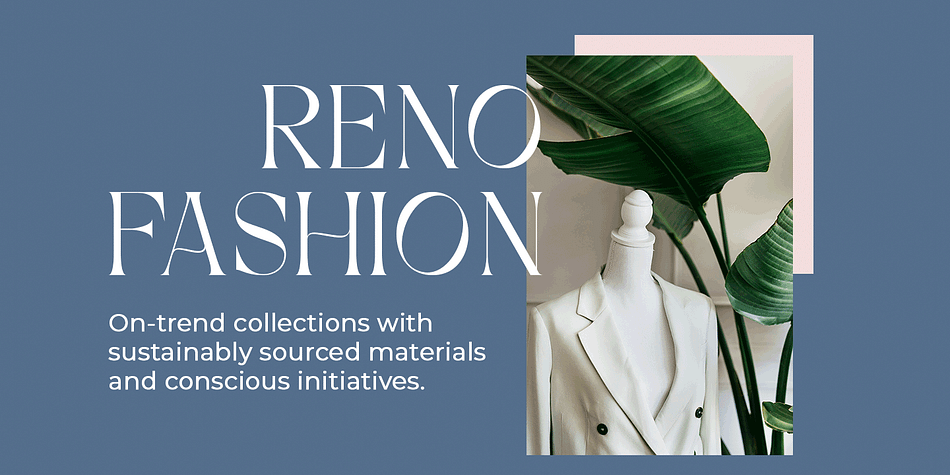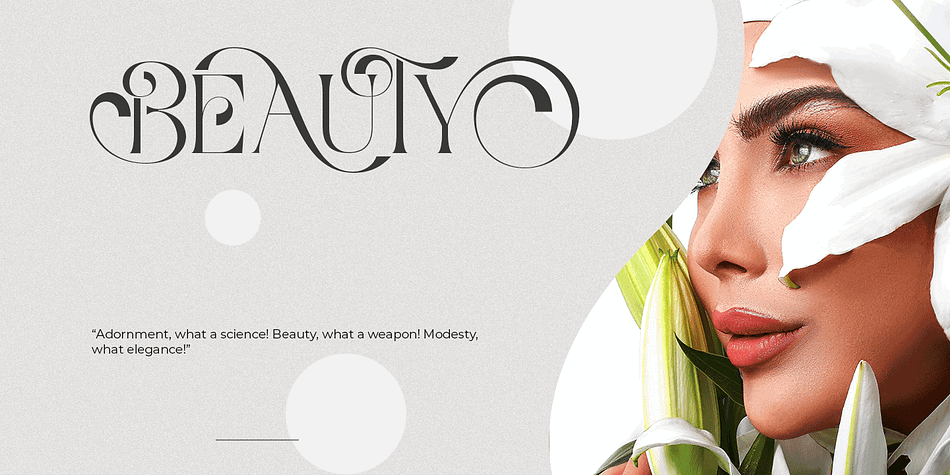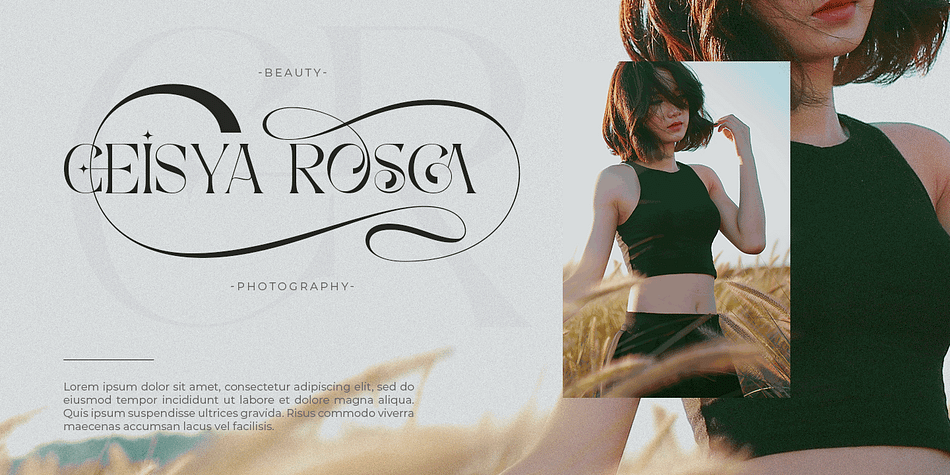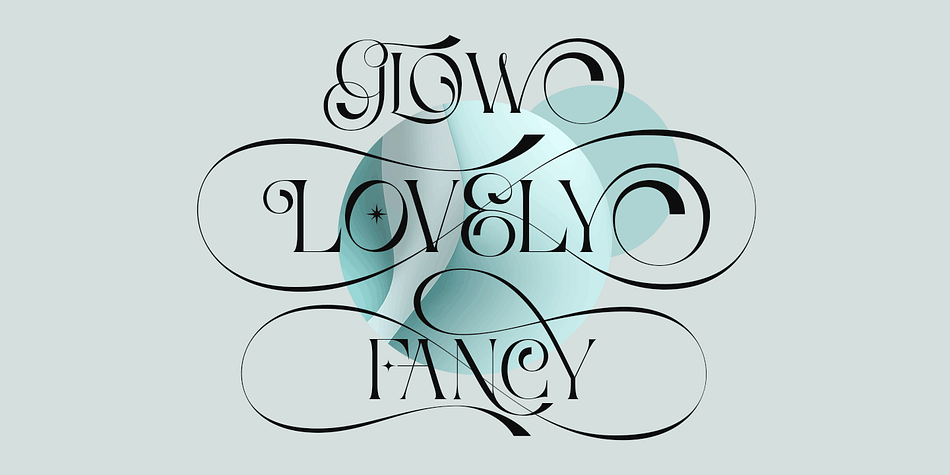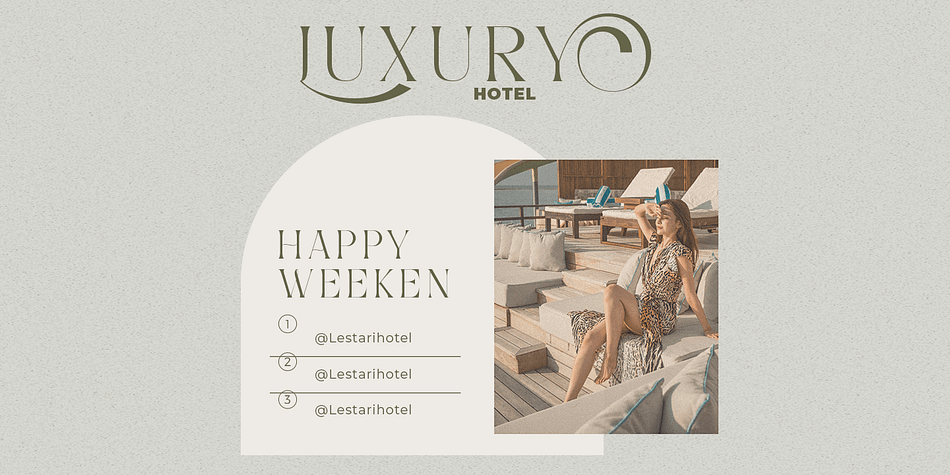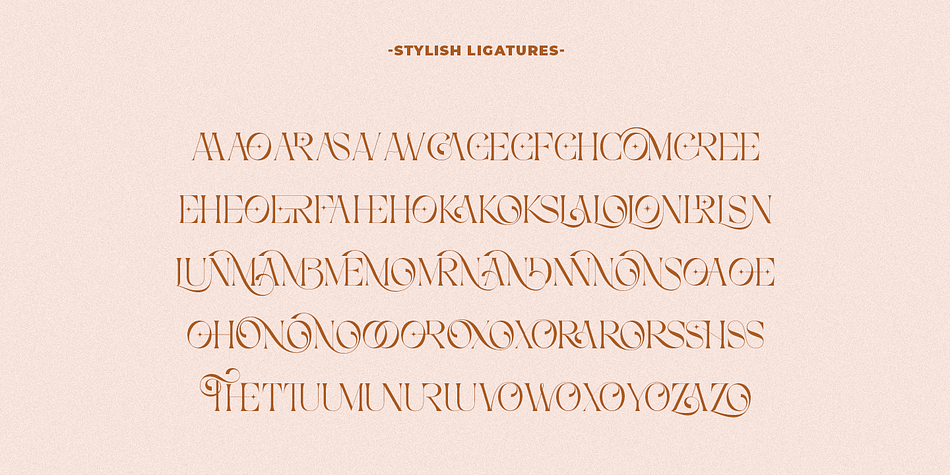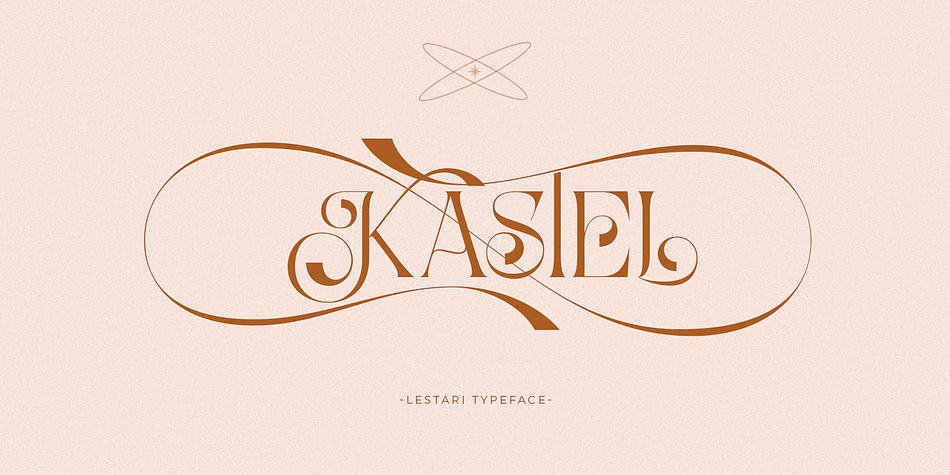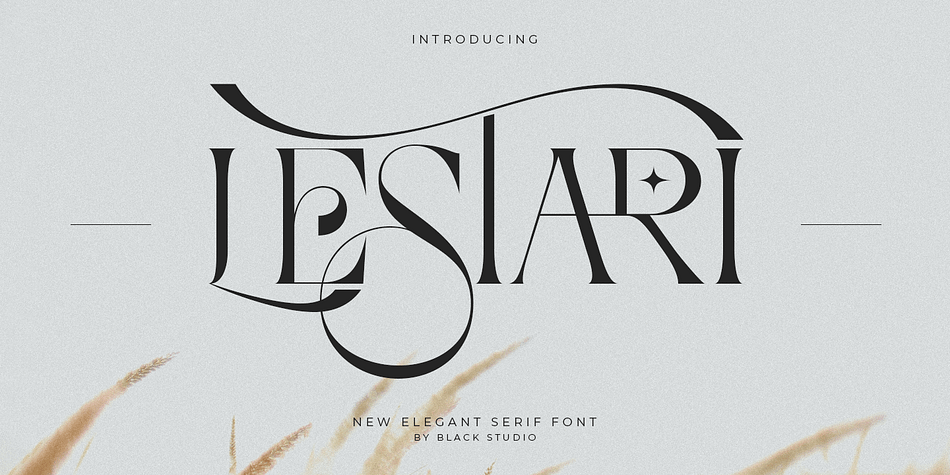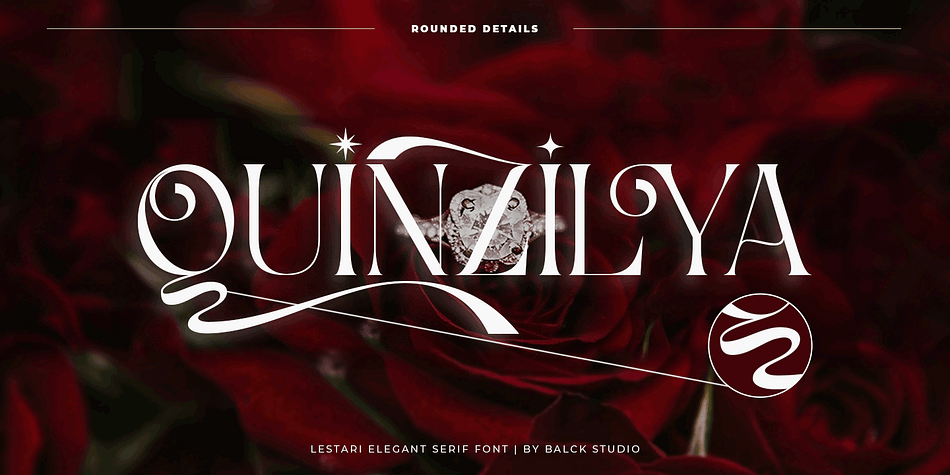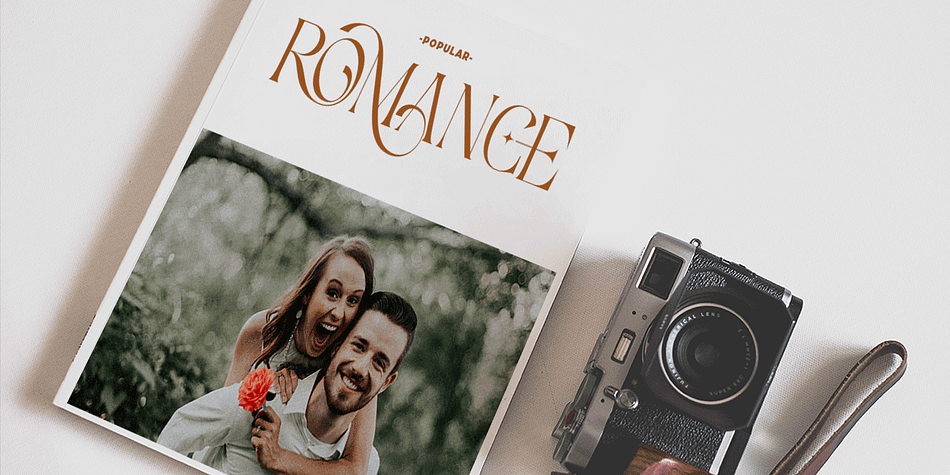
LESTARI
Lestari is a display serif font family published by Black Studio.
New from Black Studio, presenting Lestari is a typeface that is feminine, adaptable, contemporary aesthetic and creates endless variations for your creative needs.
Its striking contrasts and subtle details, together with its sumptuous strokes and voluptuous curves, create a beautiful and powerful statement for any typographic composition, blending glamor with a contemporary aesthetic.
This type of family has become the work of true love, making it as easy and fun as possible.